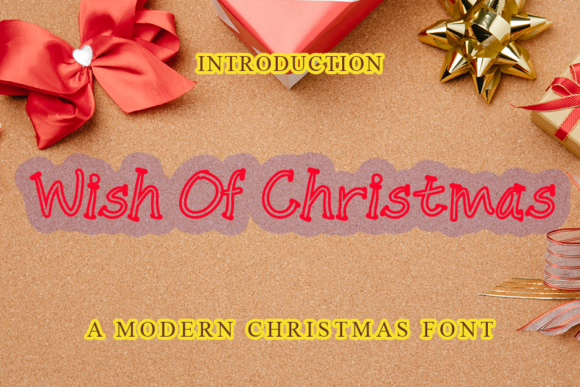
Introducing Wish Of Christmas Font, a handwritten font that's as sweet as honey. With its playful and bouncy letters, Wish Of Christmas Font will make your designs dance off the screen.
Imagine the joy you'll spread when you use Wish Of Christmas Font to craft heartfelt Christmas cards. Your loved ones will feel enveloped in the warmth of your holiday wishes, as if you're giving them a cozy hug through the mail.
This font is perfect for creating labels that will make your Christmas jars stand out. Your guests will be delighted to find their names written in such a charming and festive way. And when you use Wish Of Christmas Font to design social media posts, your followers will be drawn in by its irresistible charm.
Wish Of Christmas Font is not just another font. It's a reflection of your personality – warm, friendly, and always ready to spread cheer. So whether you're creating Christmas cards, jar labels, or social media posts, Wish Of Christmas Font will bring your designs to life with its unique and enchanting style.